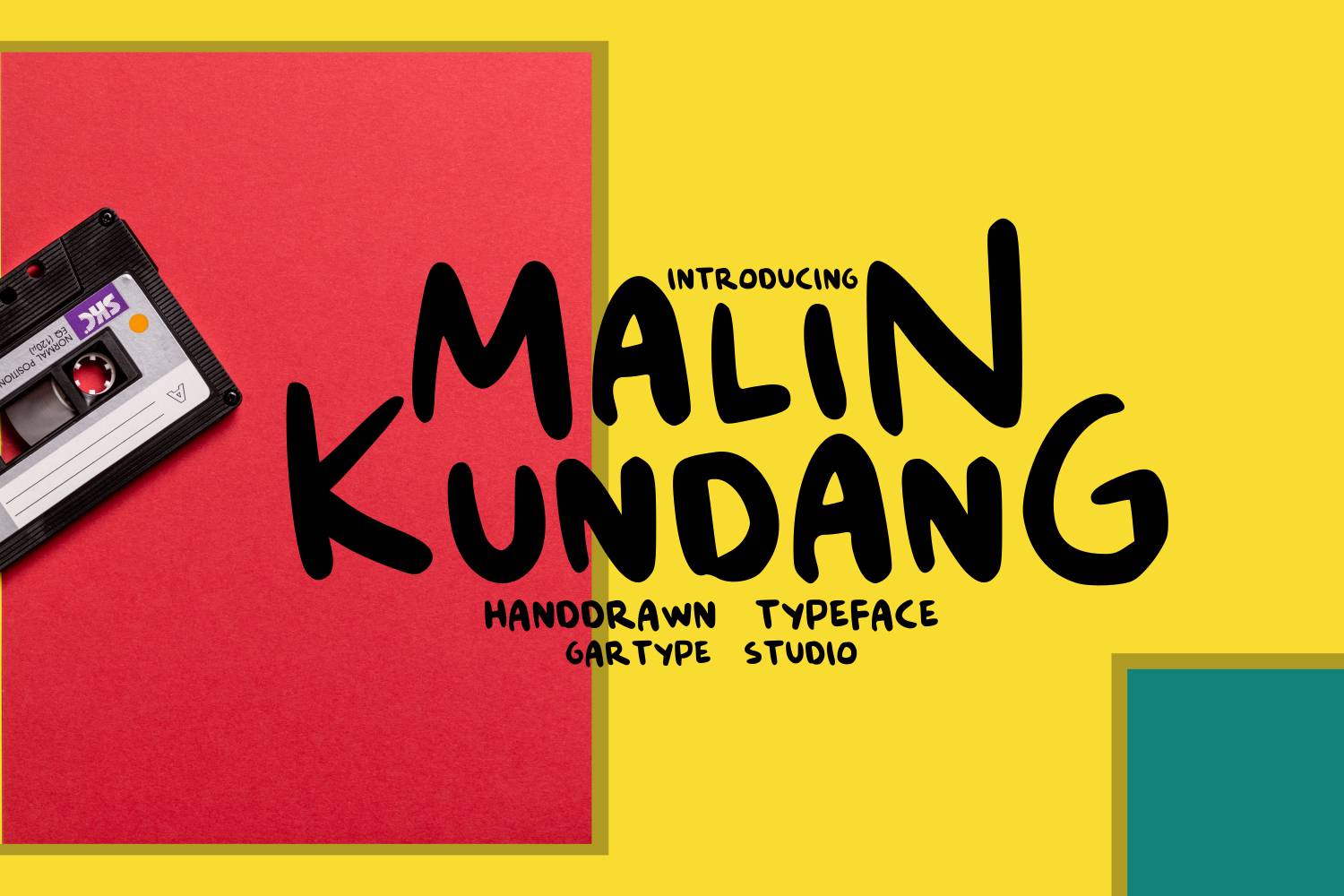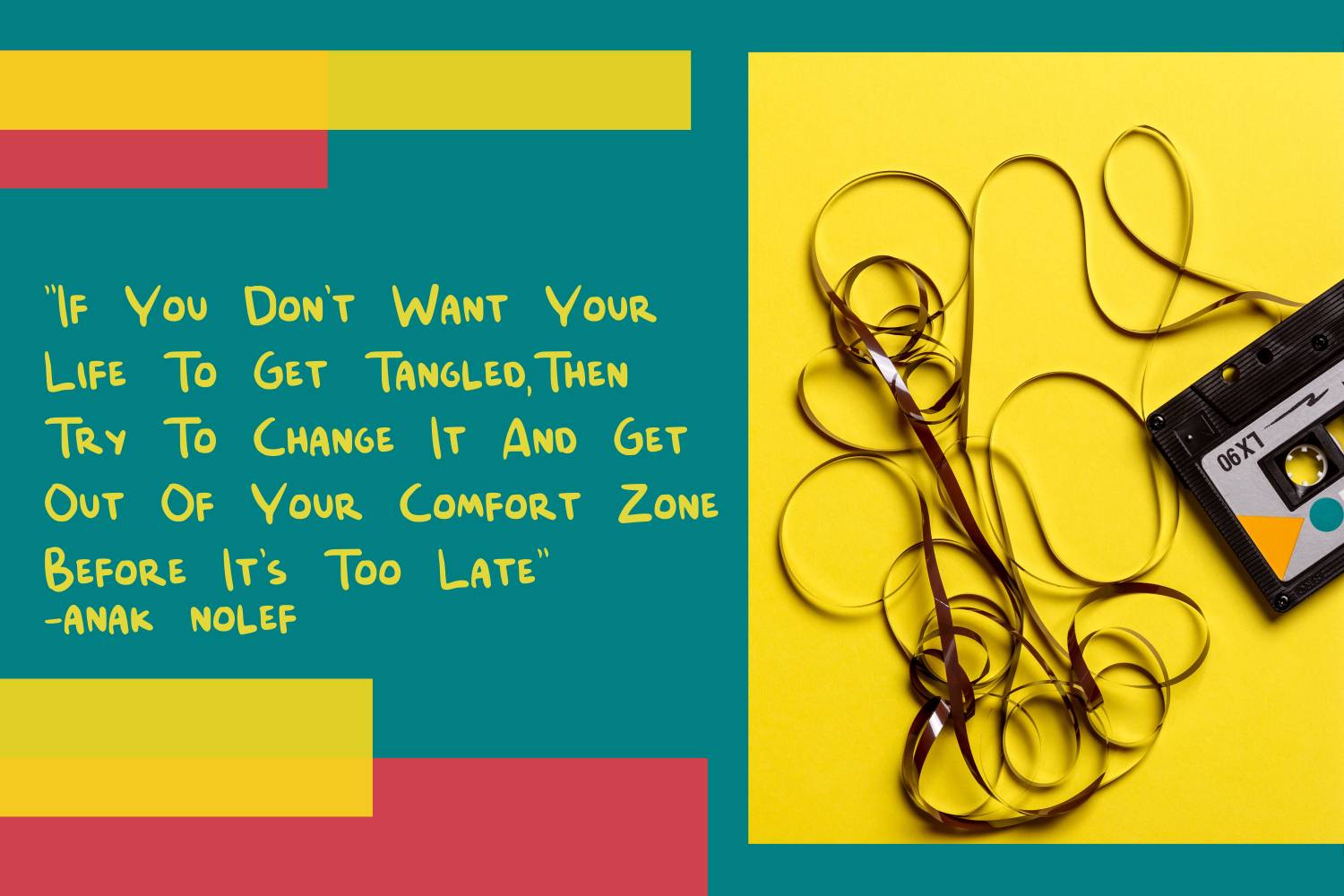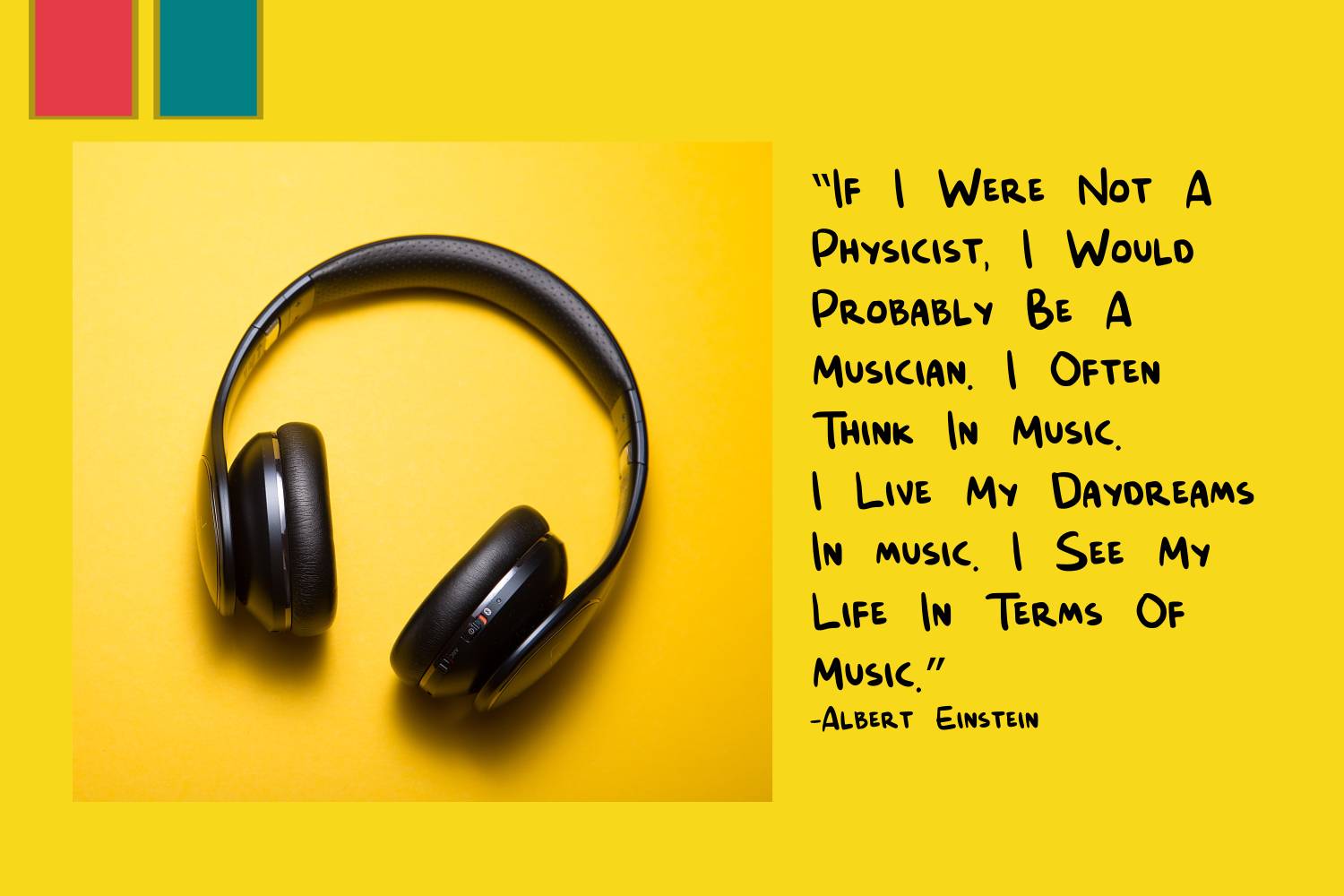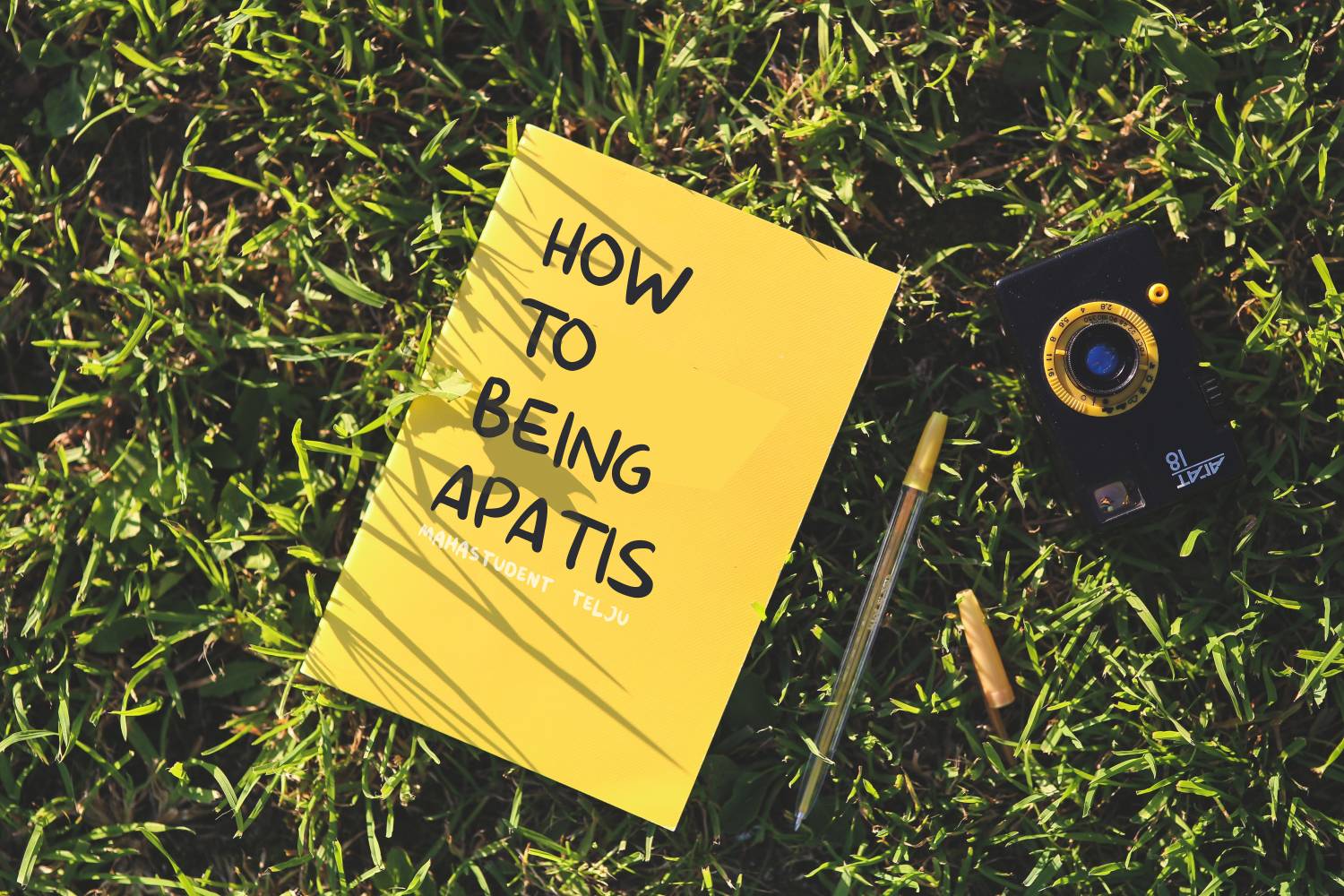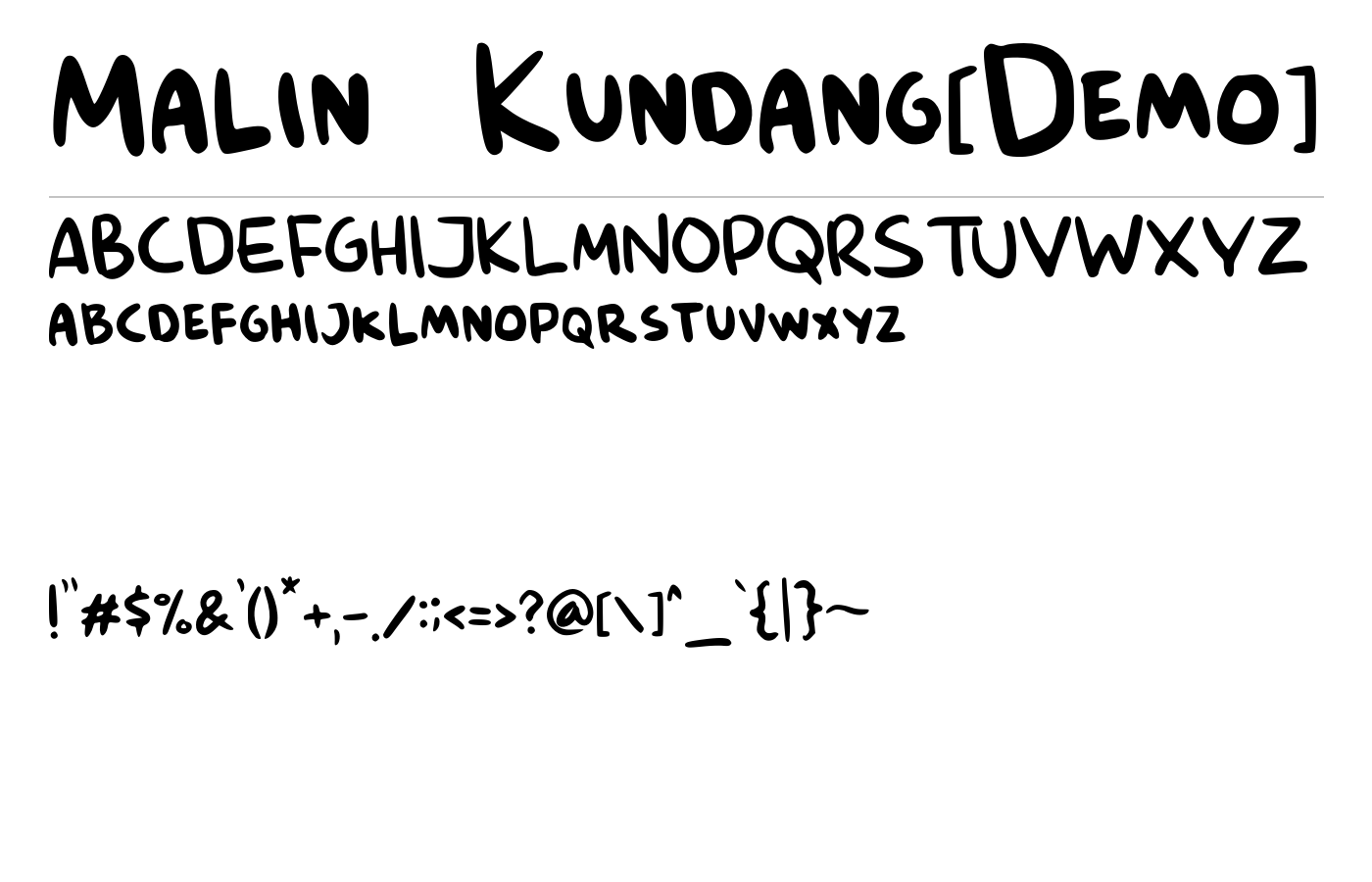
Malin Kundang is a playful, informal handwritten font with a casual and friendly vibe. Its rounded, slightly uneven letterforms give it a natural, approachable feel, making it perfect for creative projects, children's materials, or any design needing a personal, hand-crafted touch. This font works well in headlines, logos, and fun packaging where warmth and personality are desired.
Malin Kundang Font
About Malin Kundang Font
| Font family | Malin Kundang Font |
| Release date | 2019-01-25 |
| Designer | Gumilang Anggara Ruslan |